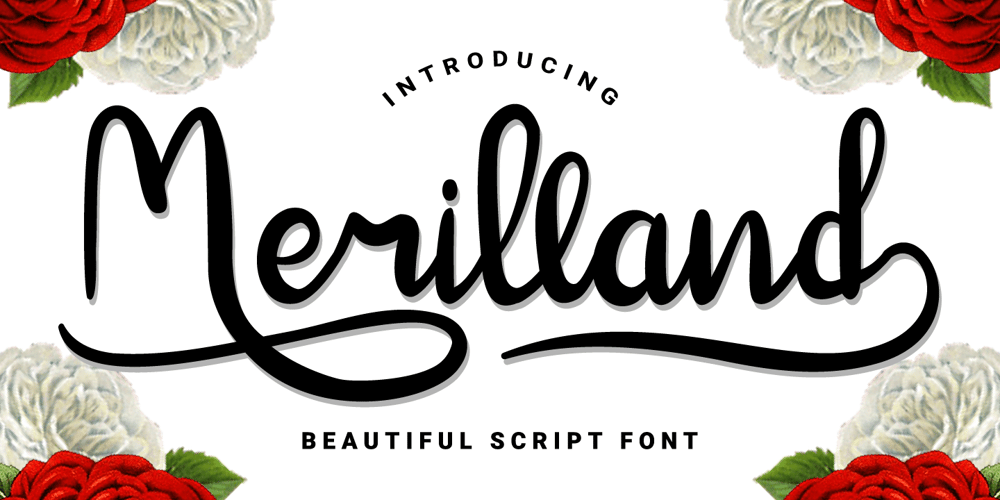
Merilland Font Family was designed by Prio Nurokhim Aji and published by Prioritype. Merilland contains 1 styles and family package options. Hello everyone, here is a font that comes with a beautiful impression and is equipped with alternative characters that can be processed at will. You can apply this font in various print and digital media such as logos, wedding invitations, craft products, promotions on social media and many more. Lots. For reference, see preview.Features:-Uppercase-Lowercase-Numeral-Punctuation-Multilingual-Alternate-Ligature-Swash